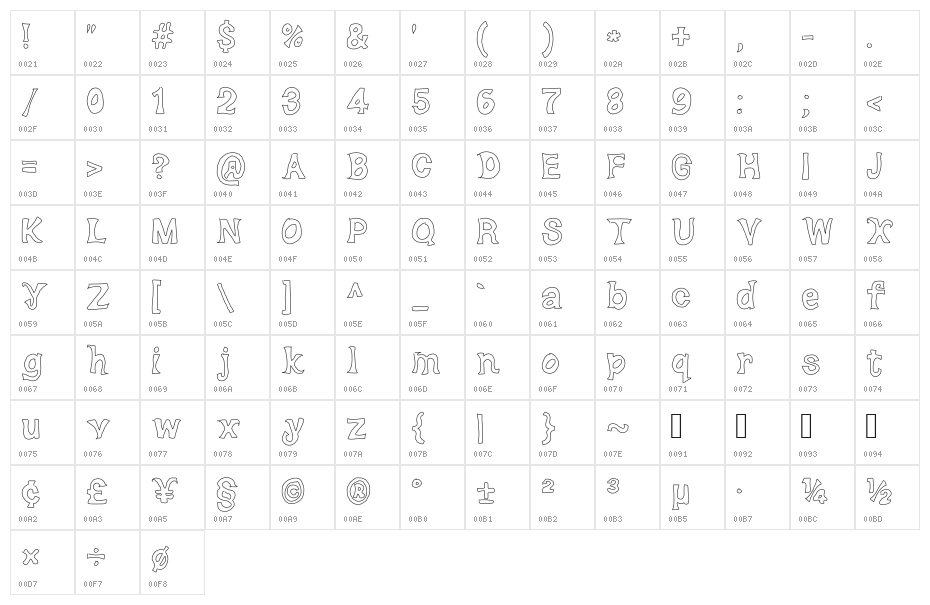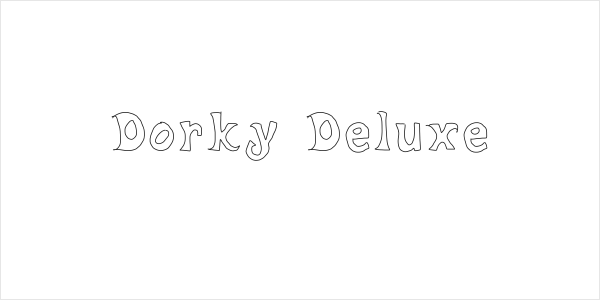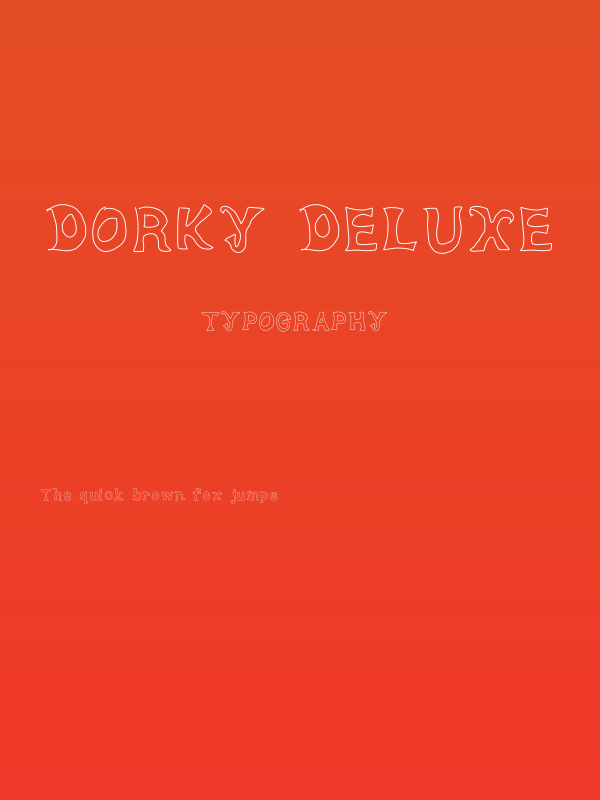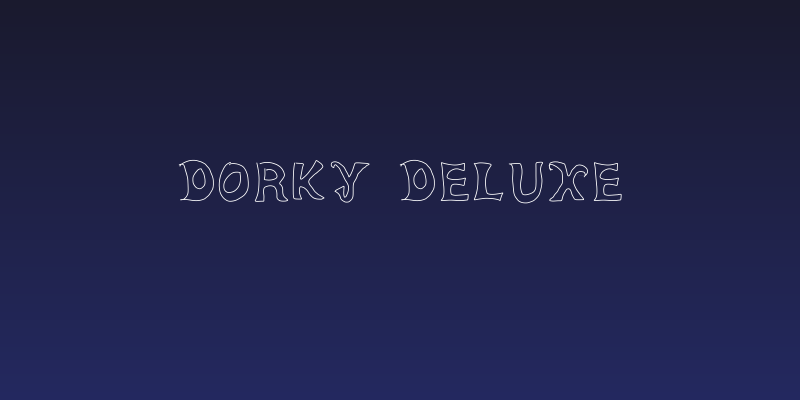
Dorky Deluxe Font
Dorky Deluxe Description
This font features a playful and whimsical design with irregular, wavy lines that give it a hand-drawn appearance. The characters are bold and slightly exaggerated, with unique, quirky shapes that add a sense of fun and creativity. The uppercase and lowercase letters maintain a consistent style, while the numbers and special characters complement the overall aesthetic. This font's distinctive look makes it ideal for projects that require a touch of humor and individuality.
Overall StyleWhimsical
Proposed ProjectsIdeal for children's books, comic strips, playful branding, and creative posters.